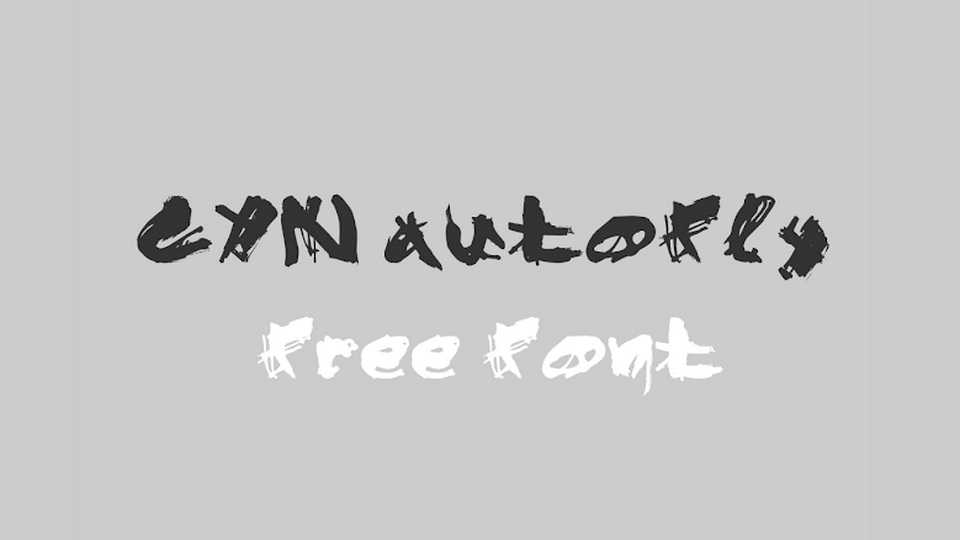
Download CYN Autofly font, a grungy hand lettered typeface with ink splatters and scratches. The fonts will be perfect for posters, t-shirts, album artworks.
Designer: Petros Vasiadis